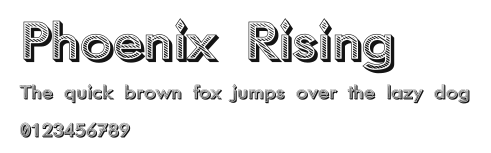
• Font Name: Phoenix Rising
• Full Font Name: Phoenix Rising
About Phoenix Rising.ttf
Phoenix Rising.ttf is a modern, elegant sans-serif font designed for ultimate readability and visual harmony. Perfect for branding, headlines, web design, and print materials.